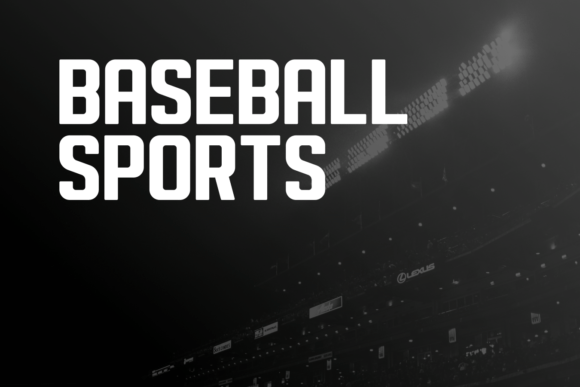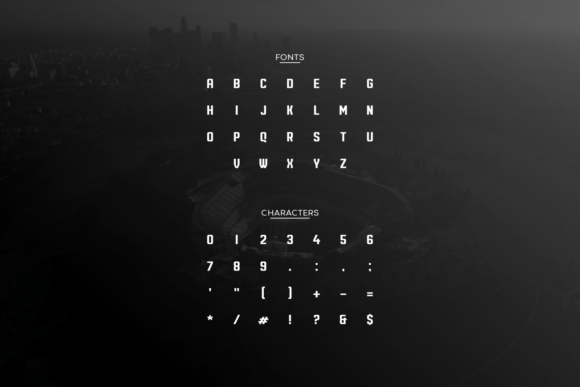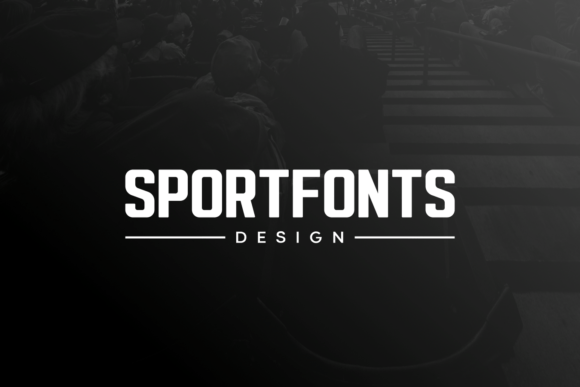
Introduction to Grusiaq Font
Grusiaq is a decorative typeface that brings a mix of classic and modern into a new styles, minimalist style with rounded accent in every corner.
This typeface is only available in all caps, will suit a variety of design needs, very suitable for making logo designs, headlines, also titles that are related to sports themes Get it right away and use your imagination for more interesting, different and unique designs.